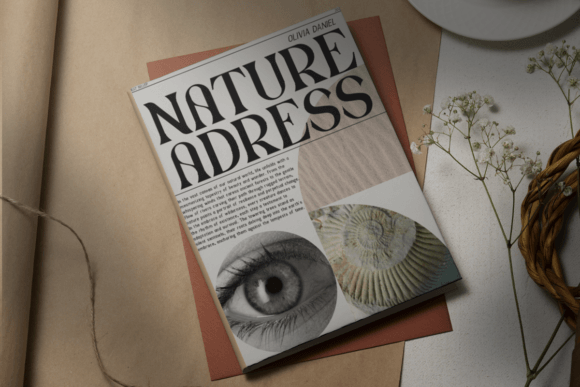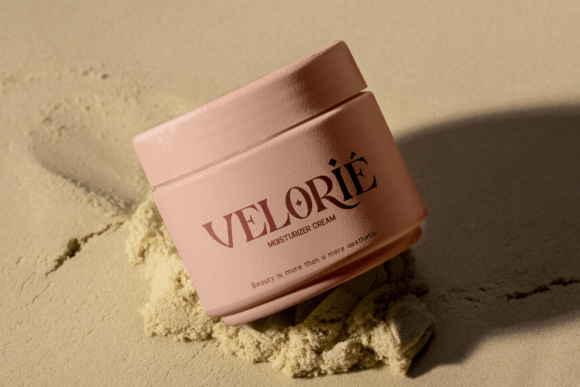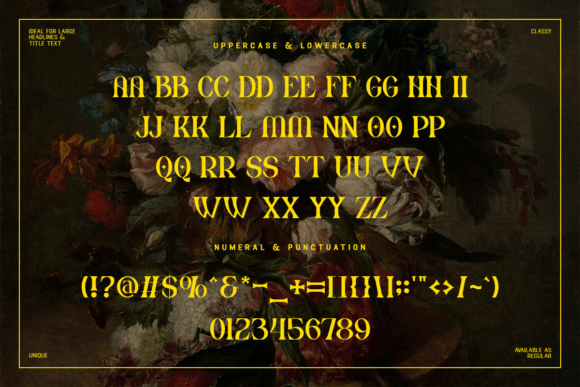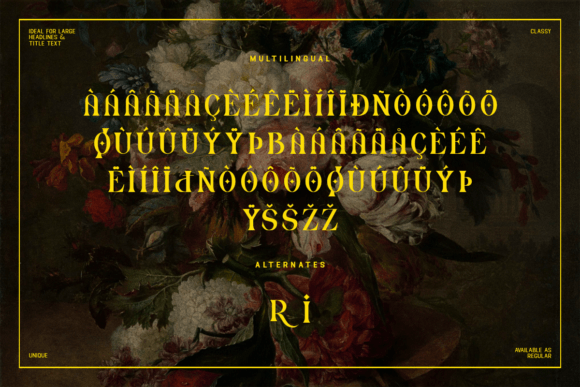
Introduction to Drivex Font
Drivex Serif Font is a bold and dynamic typeface that merges traditional serif elegance with a contemporary edge.
Featuring strong, distinctive letterforms, Drivex is perfect for making a powerful statement in any design project Whether youโ€™re creating eye-catching headlines, sophisticated branding, or editorial layouts, this font offers the perfect balance of classic refinement and modern flair.